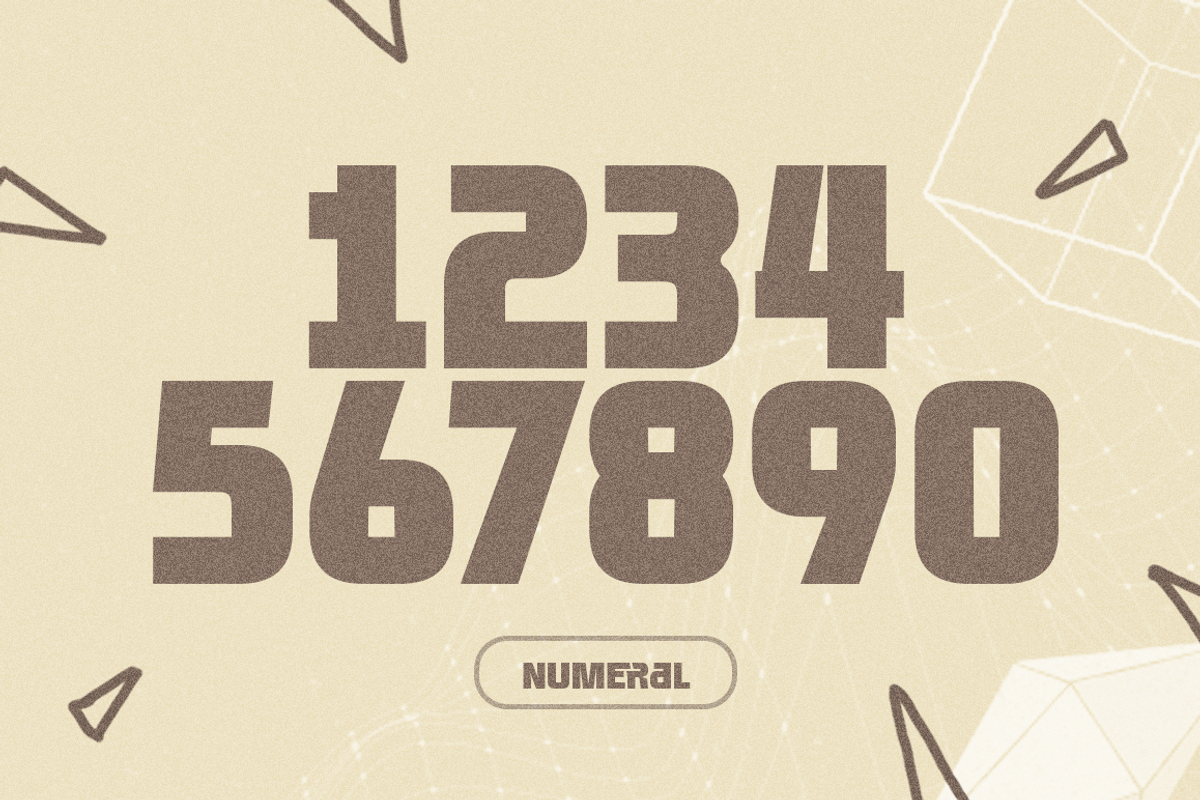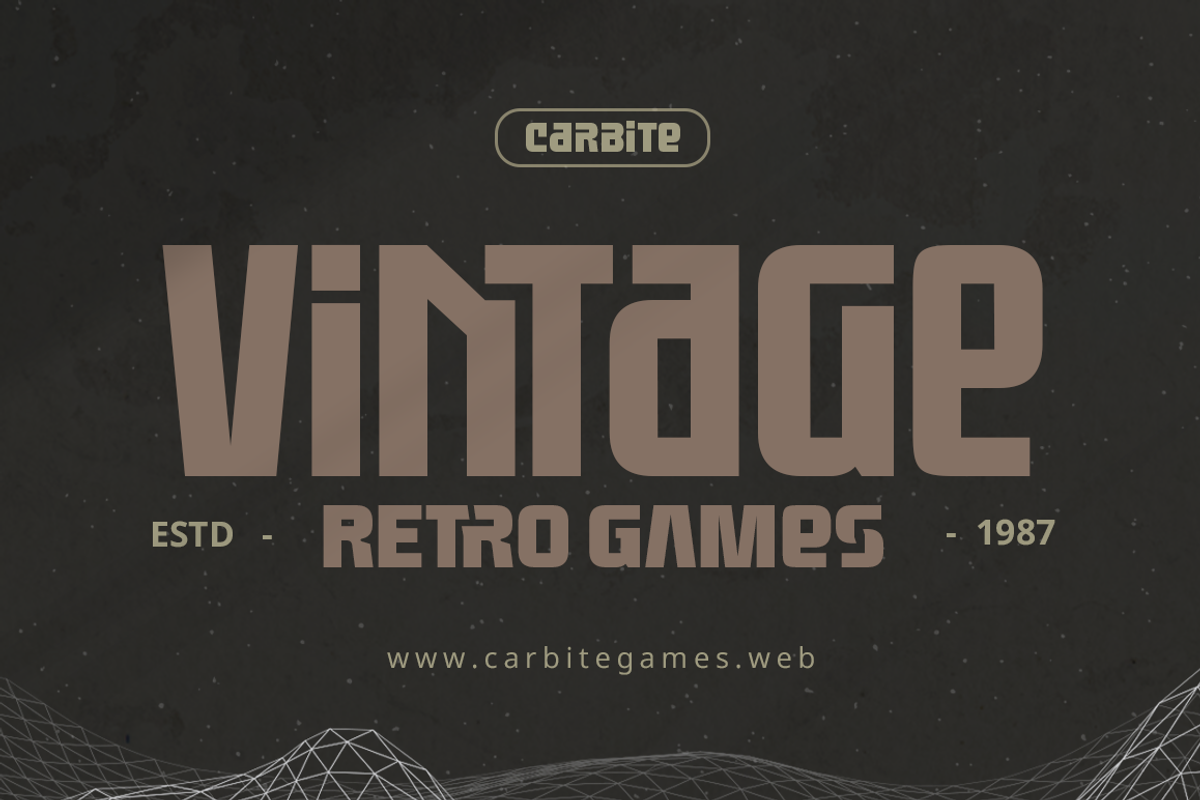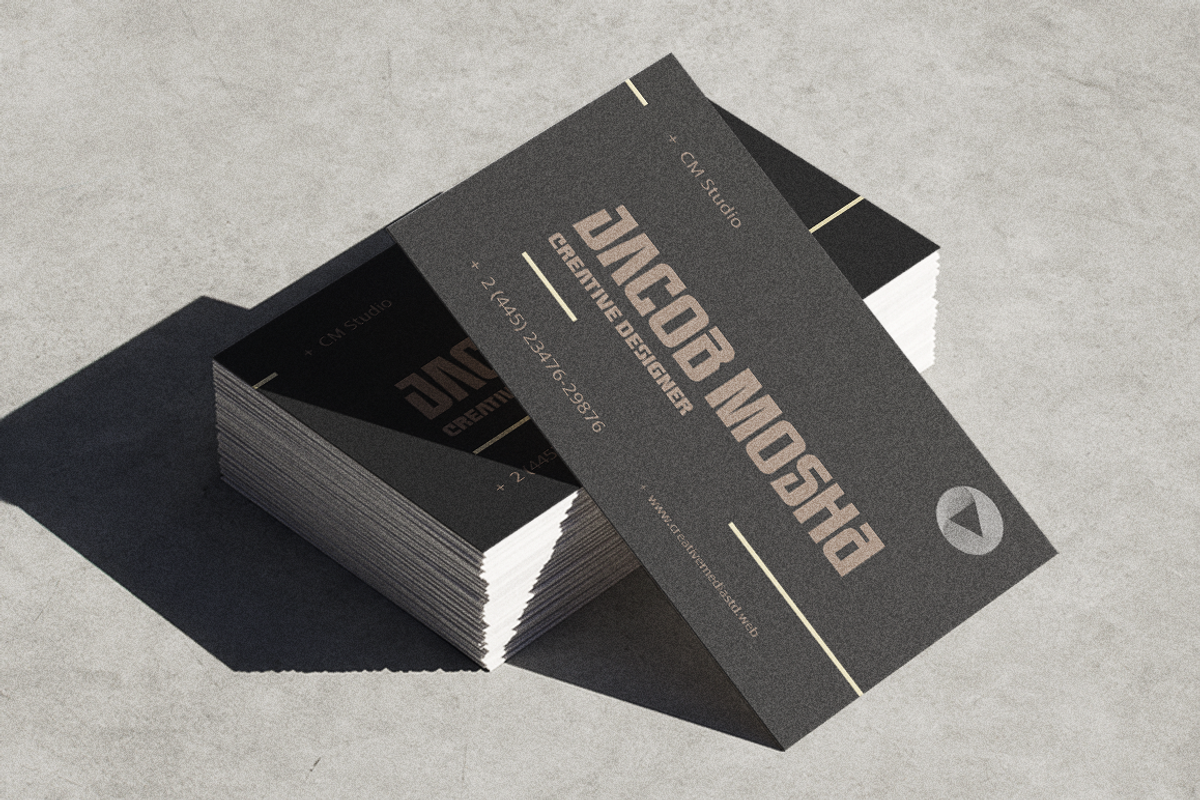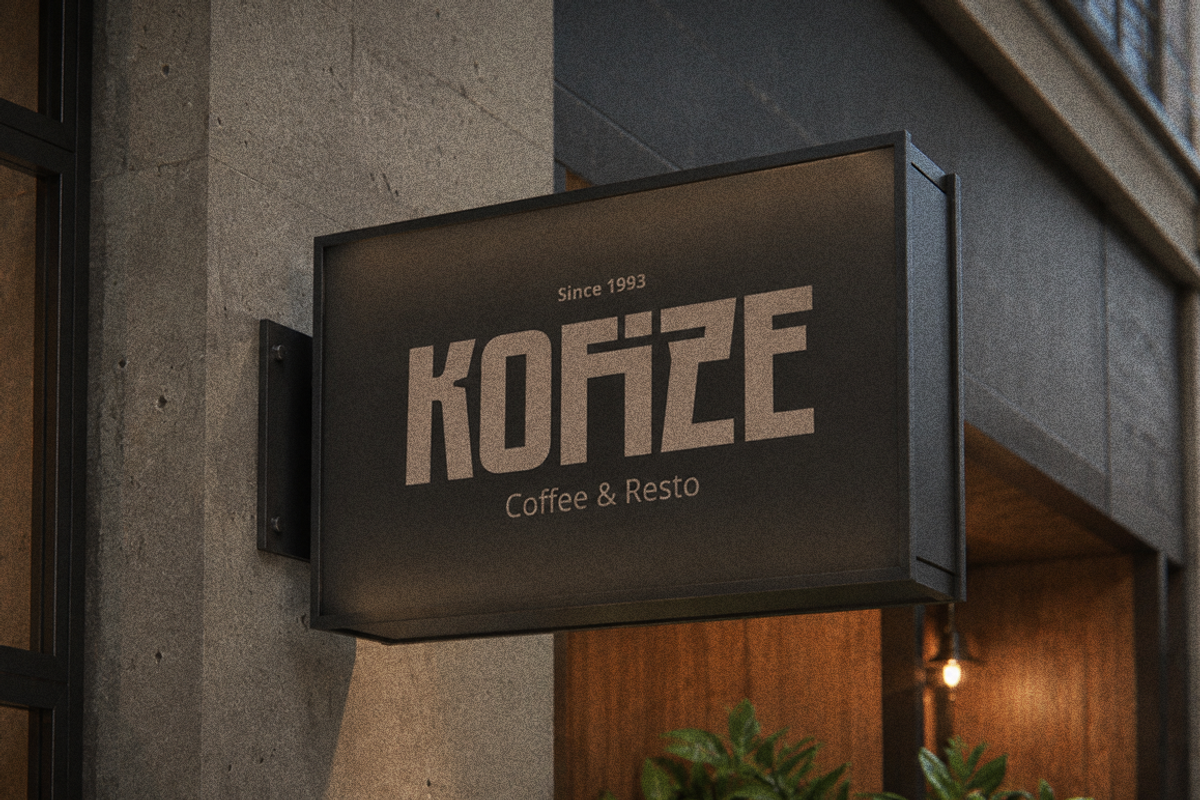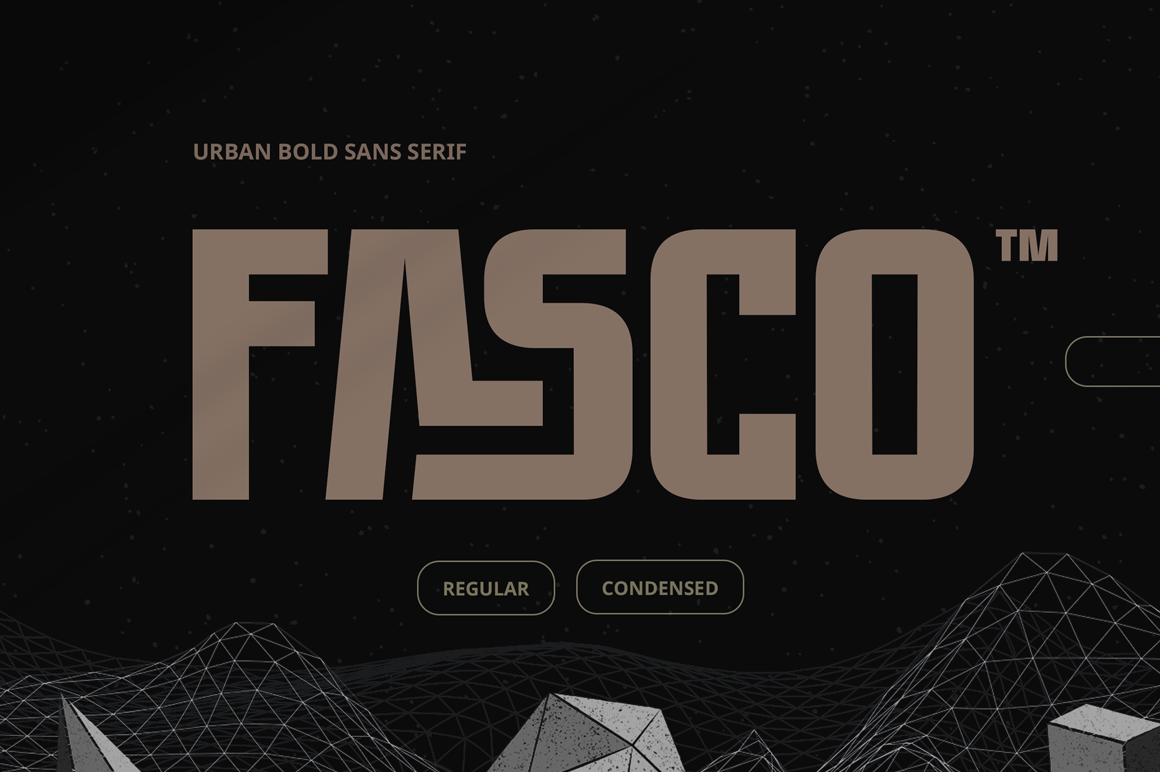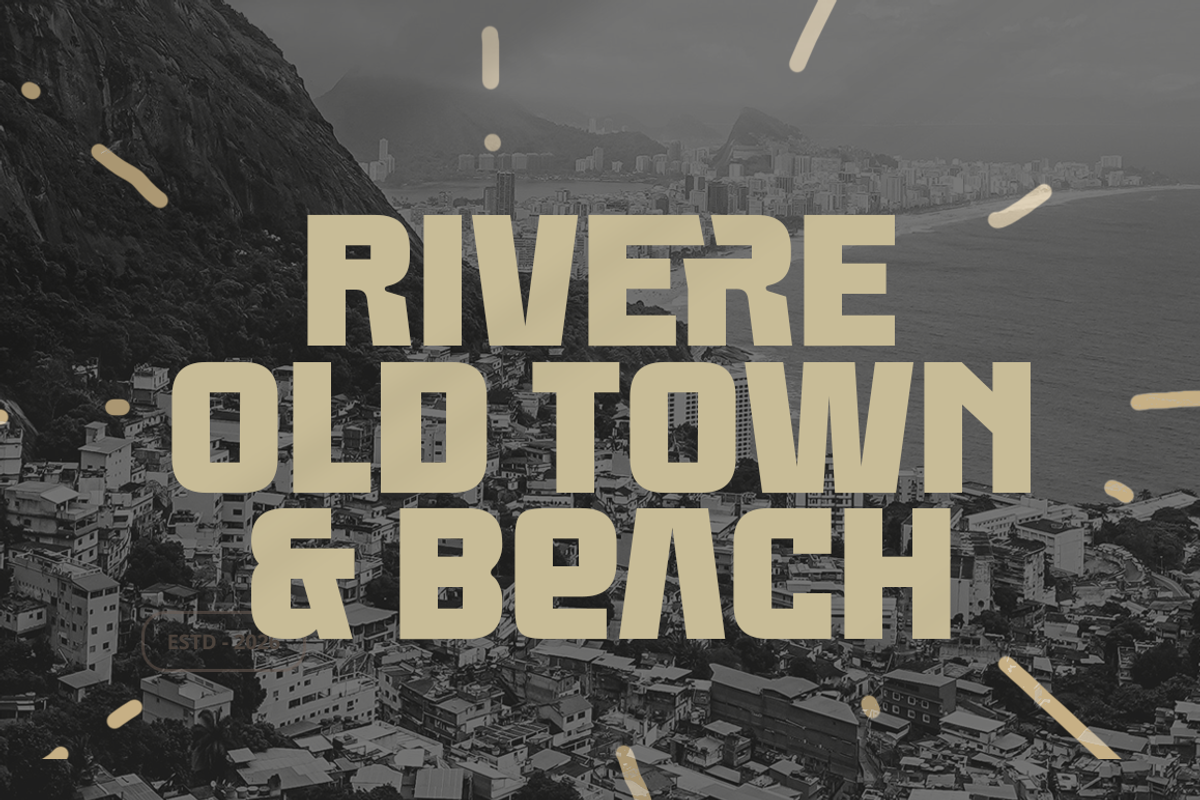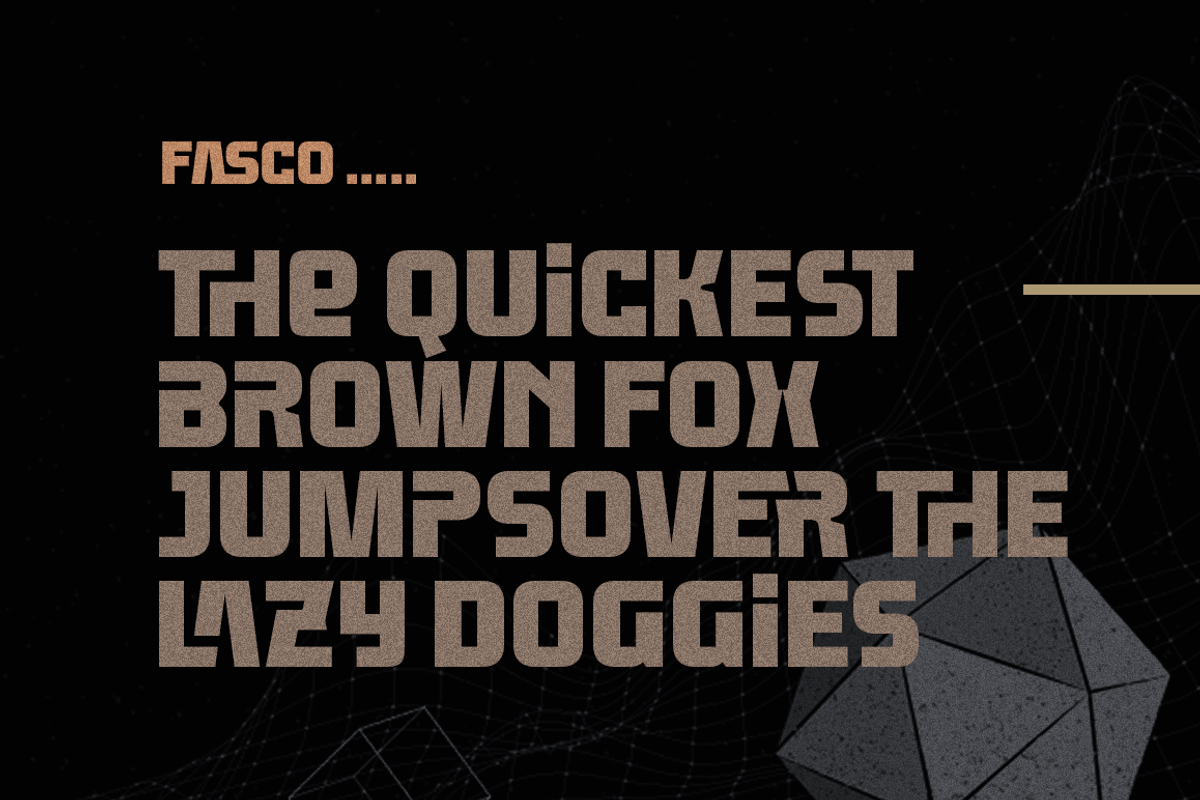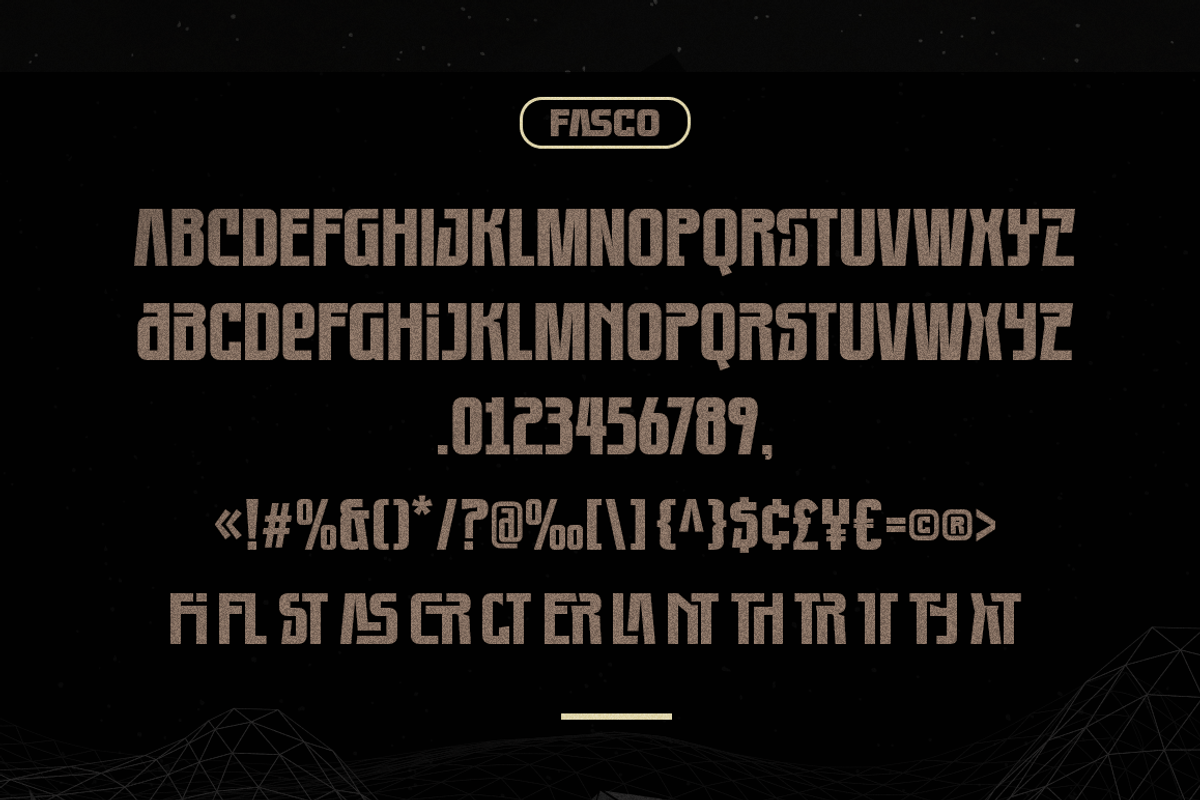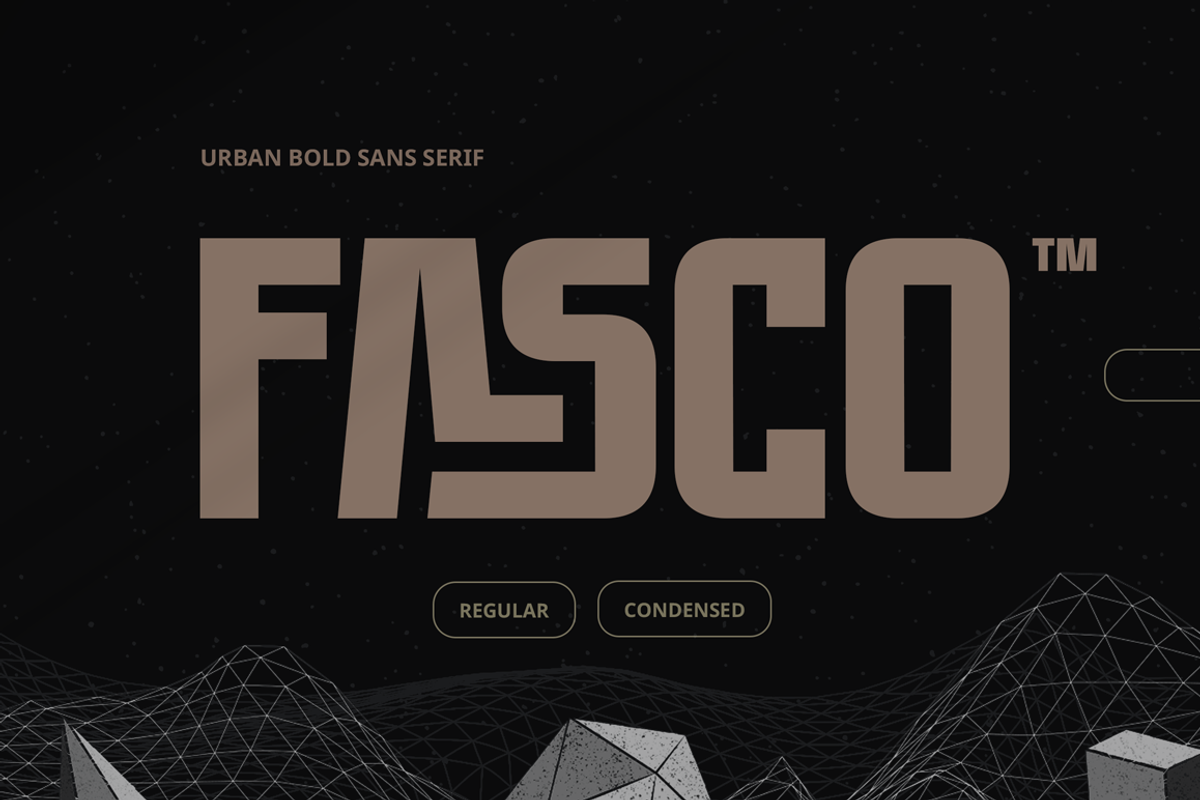
Fasco Typeface
Fasco is a bold urban sans serif with a raw, confident attitude and a distinctly modern edge. Designed with strong forms and commanding proportions, it turns ordinary words into powerful visual statements. The Regular and Condensed styles offer two different personalities—balanced and bold or tight and striking—giving you plenty of room to experiment. Its custom ligatures bring an unexpected twist to the letterforms, creating distinctive combinations that make the type feel crafted rather than ordinary. Fasco is made for brands that want presence, from bold logotypes and identities to posters, packaging, headlines, banners, and contemporary branding. Strong, sharp, and unmistakably urban—Fasco was made to be noticed.
Basic Latin Glyphs
Urban Sans Serif Font
Unique Ligatures
All Caps Letters
Numeral and Punctuation
Currencies